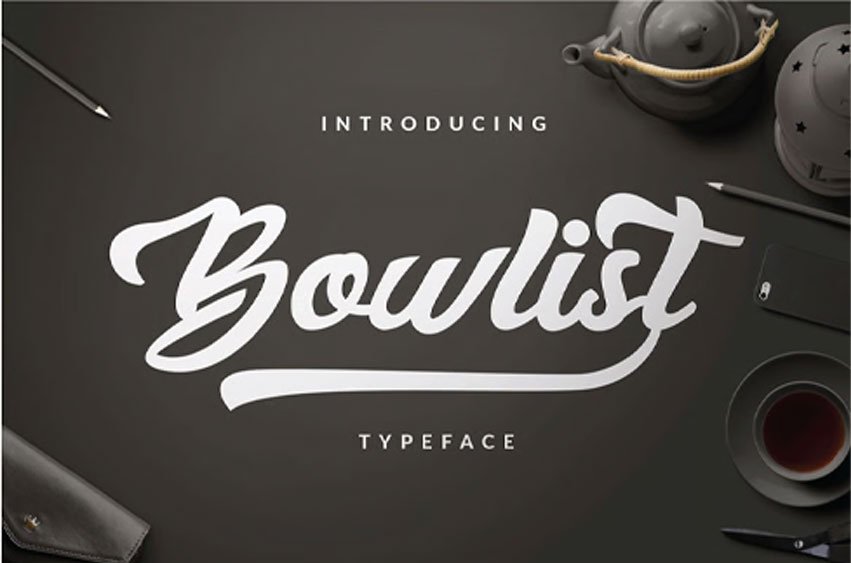
Bowlist Font is bold, playful, modern, and multi-purpose typeface that combines brush lettering with natural handwriting. It is suitable for logo, packaging, headline, poster, t-shirt, etc.
With 376 glyphs and 161 alternatives characters, you can mix and match Bowlist to fit your design. The alternative characters divided into several OpenType features such as Ligature, stylistic alternates, stylistic sets, and swash. It can be accessed by using OpenType savvy program such as Adobe Illustrator and Adobe InDesign.